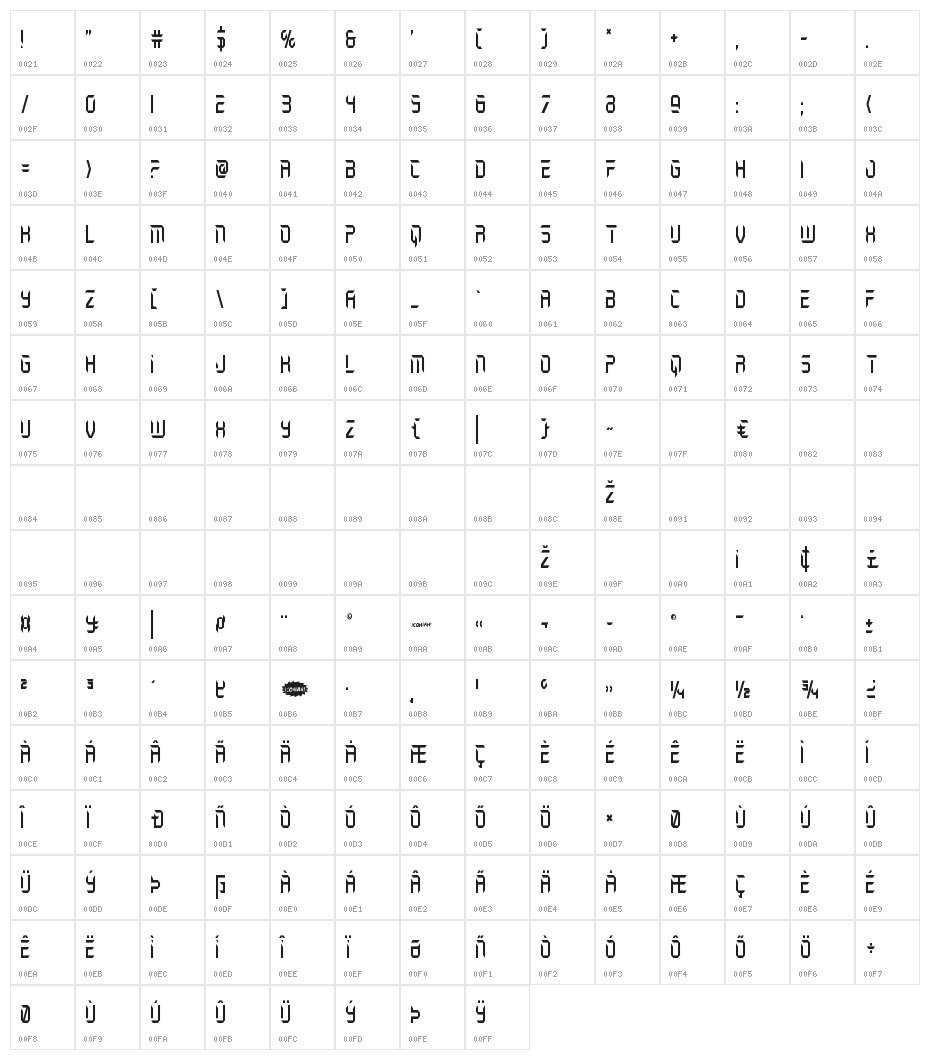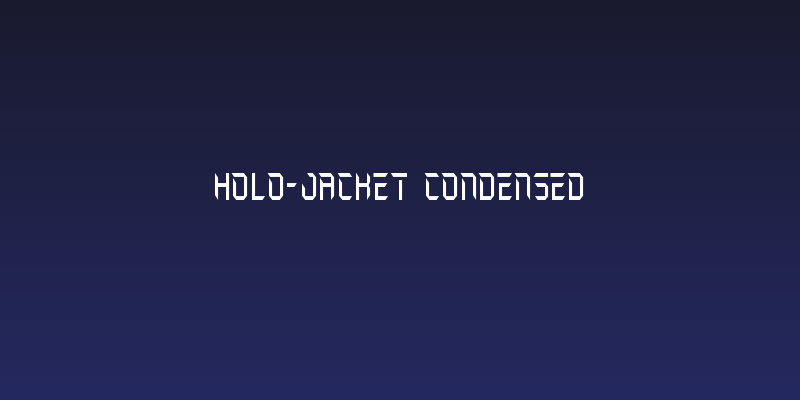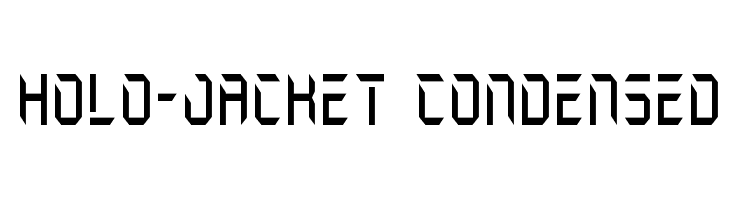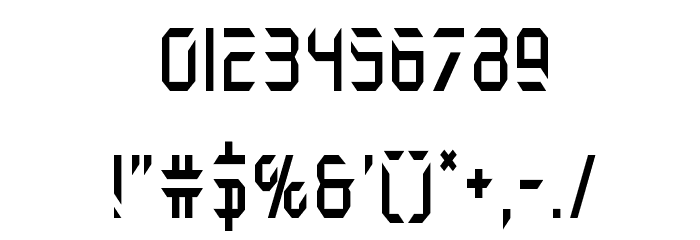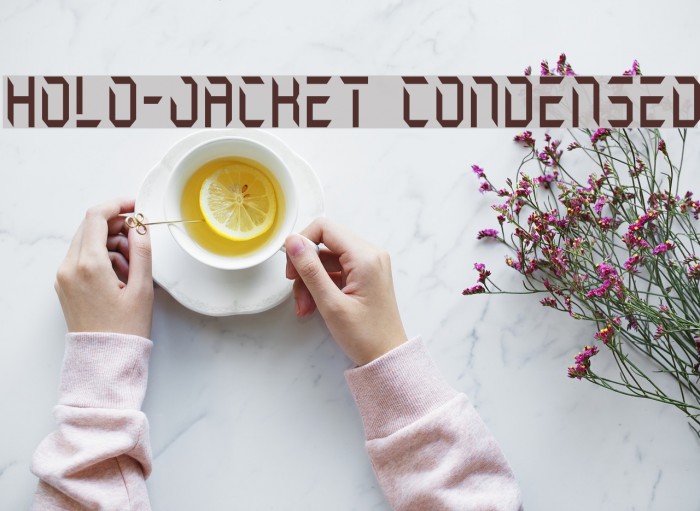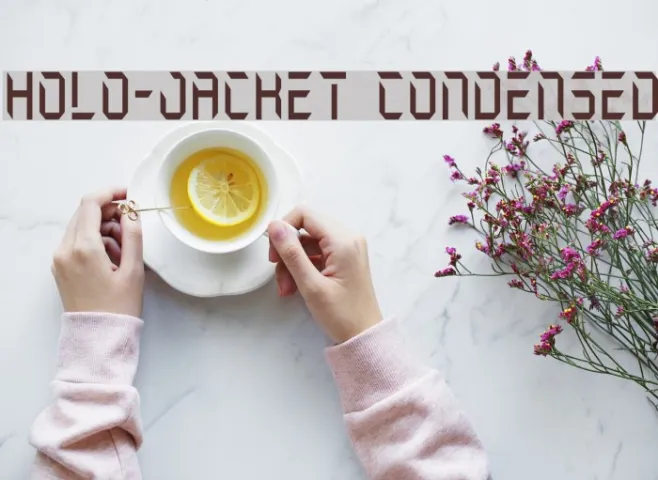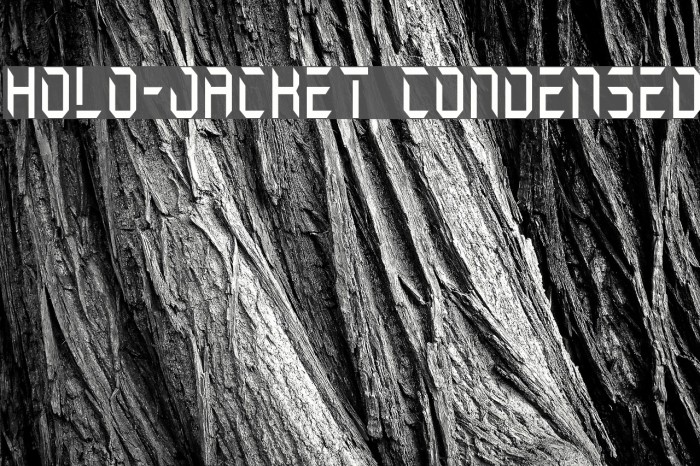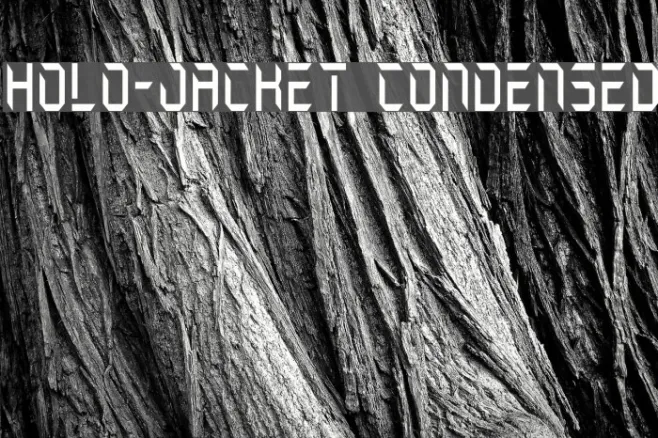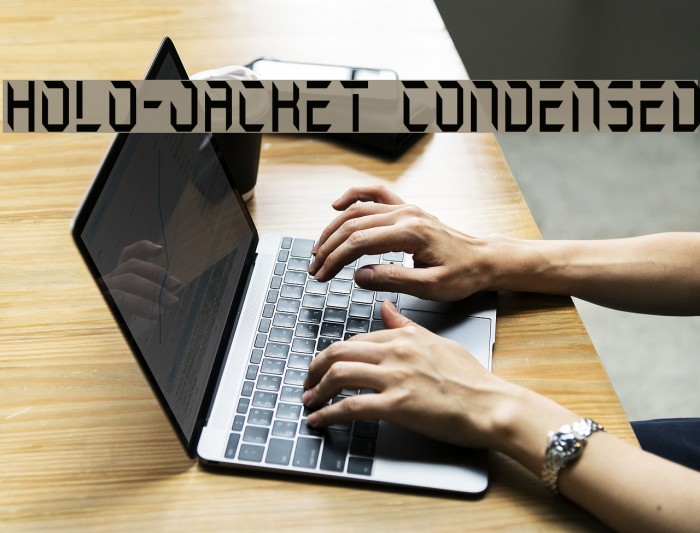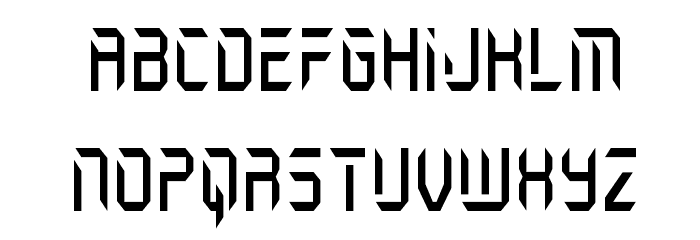
Holo-Jacket Condensed Font
Holo-Jacket Condensed Description
This font presents a futuristic and geometric style, characterized by sharp angles and a condensed structure. The uppercase and lowercase letters maintain a uniform height, creating a cohesive and streamlined appearance. The design incorporates angular cuts and edges, giving it a modern and edgy look. The numbers and special characters follow the same angular theme, ensuring consistency throughout the typeface. The overall aesthetic is bold and impactful, making it suitable for projects that require a strong visual presence.
| Proposed Projects | Ideal for sci-fi themed designs, technology branding, video game titles, and modern posters. |